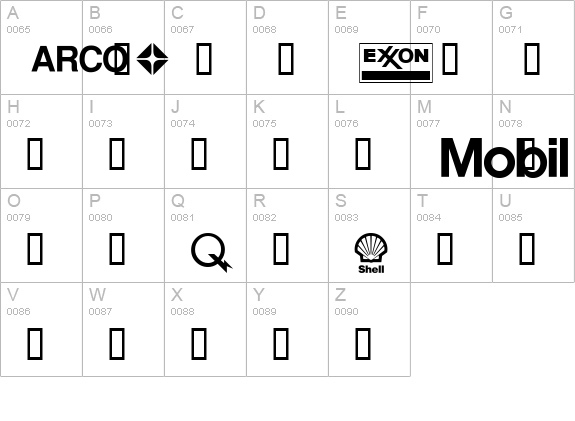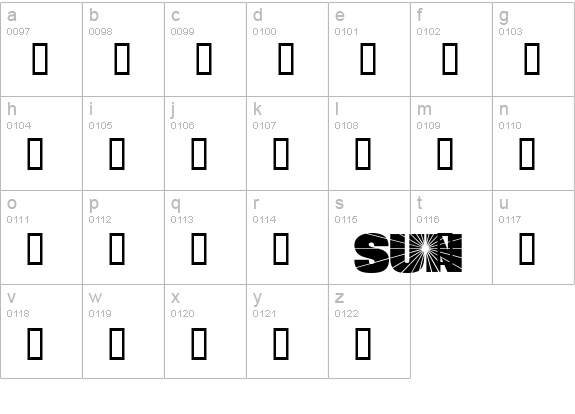
Logos Energy Font Details
Logos Energy font is a dynamic and modern typeface that exudes energy and creativity. With its sleek lines and bold strokes, this font is perfect for making a statement in branding, advertising, or any design project that needs a touch of vibrancy. What sets Logos Energy font apart is not just its striking appearance, but also the fact that it is available for free download at FontsMarket.com. This means that designers and creatives can easily access and use this font without any cost, making it a valuable resource for anyone looking to add a fresh and distinctive look to their work. Whether you're designing a logo, creating marketing materials, or simply experimenting with typography, Logos Energy font is a versatile choice that will help your designs stand out. Download it for free today and unleash the power of this energetic and impactful typeface.